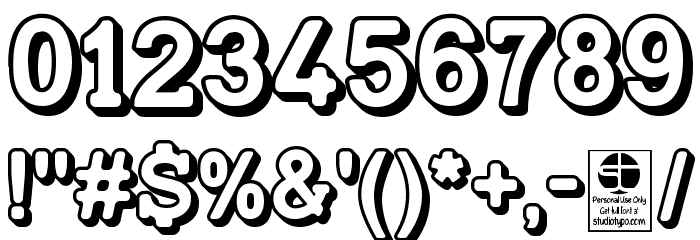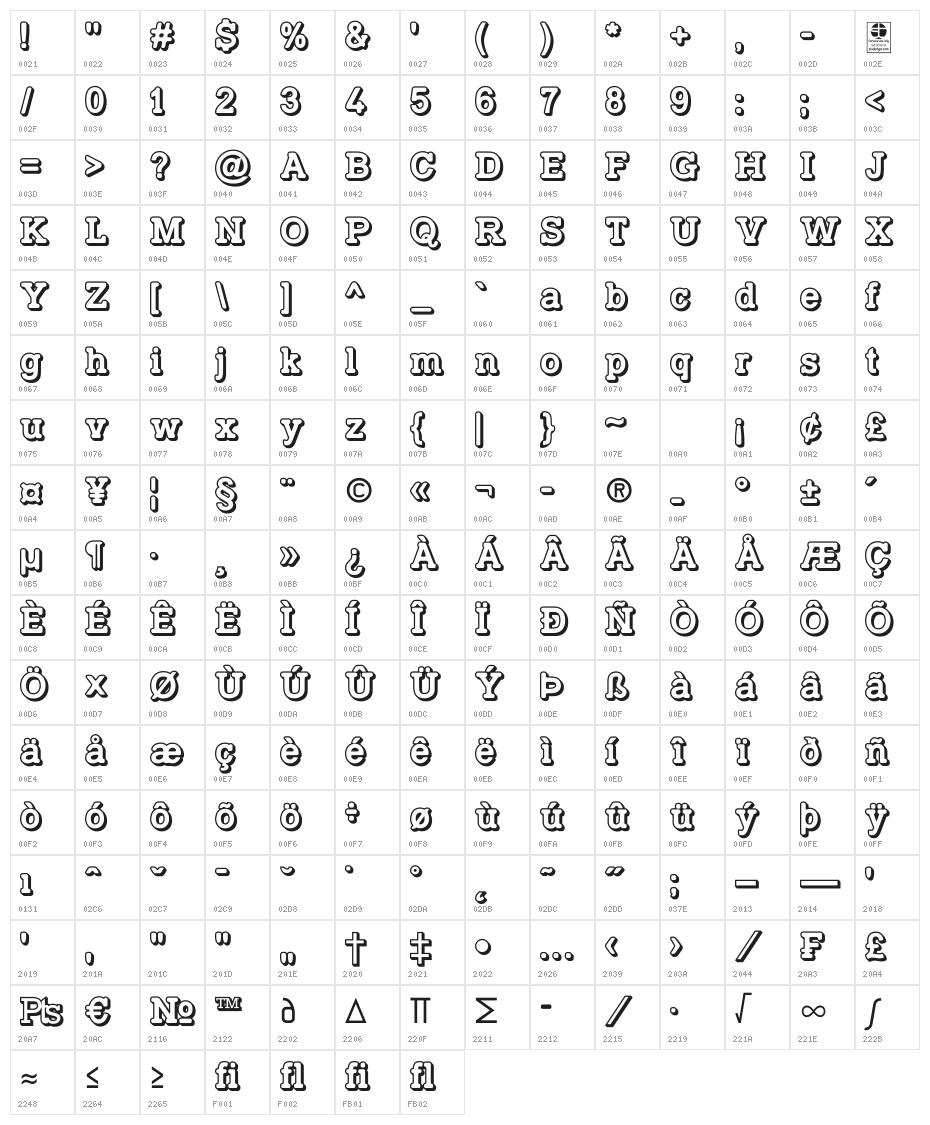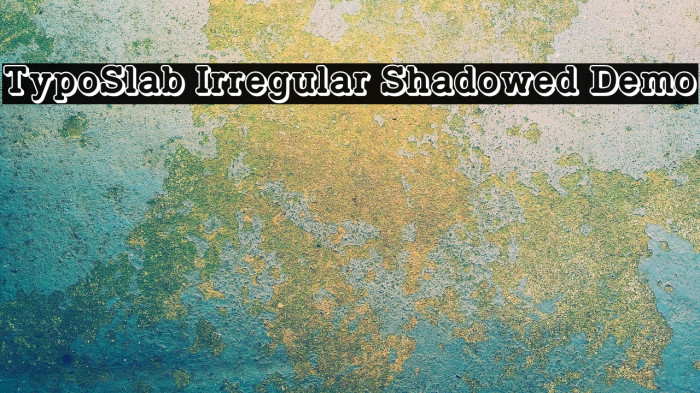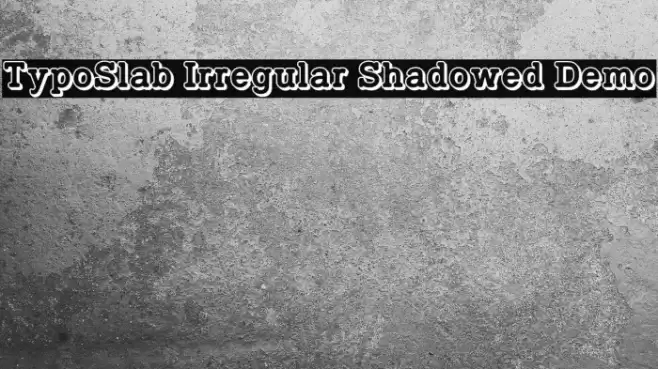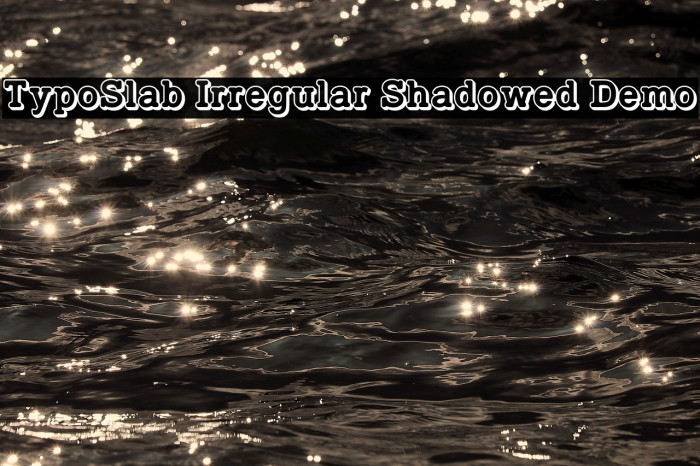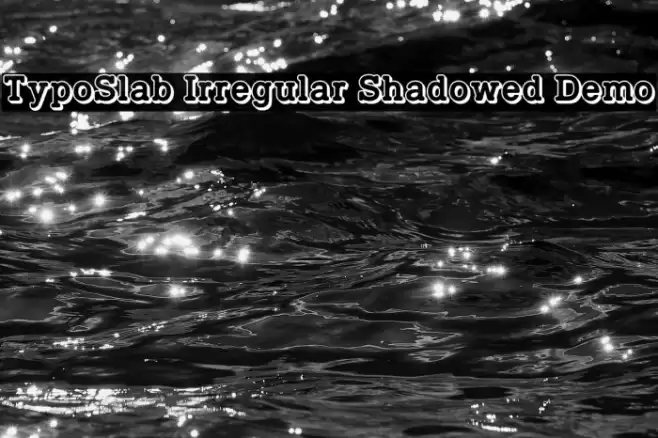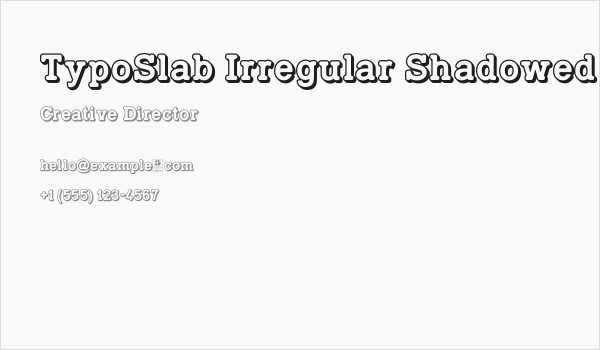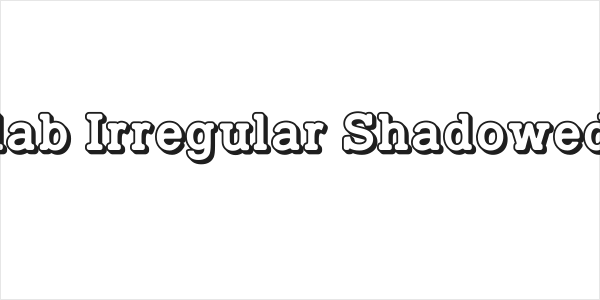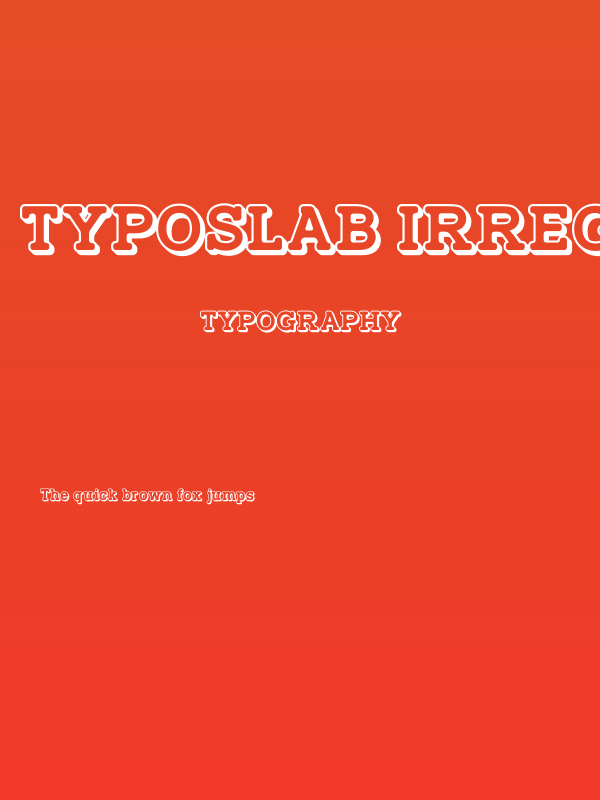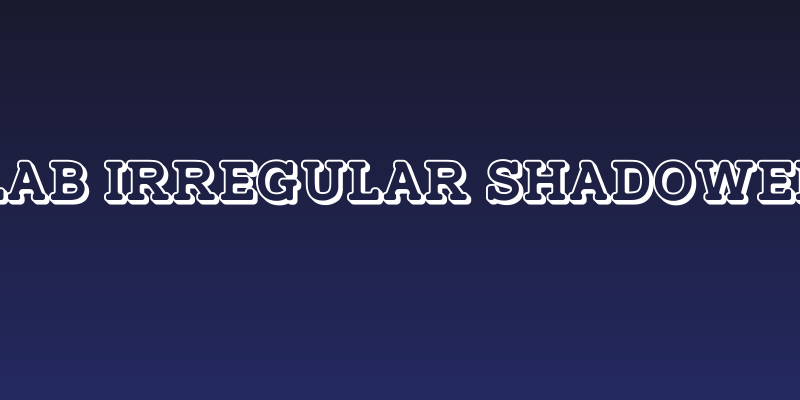
TypoSlab Irregular Shadowed Demo Font
TypoSlab Irregular Shadowed Demo Description
This font features a bold, slab serif style with a distinctive shadow effect that gives it a three-dimensional appearance. The characters are robust and have a playful, cartoon-like quality, making them stand out with their thick outlines and shadowing. The uppercase and lowercase letters maintain a consistent style, with rounded edges and a uniform weight that adds to the font's approachable and friendly look. The numerals and special characters are equally bold and maintain the same shadowed effect, ensuring a cohesive appearance across all characters. This font is designed to capture attention and convey a sense of fun and creativity.